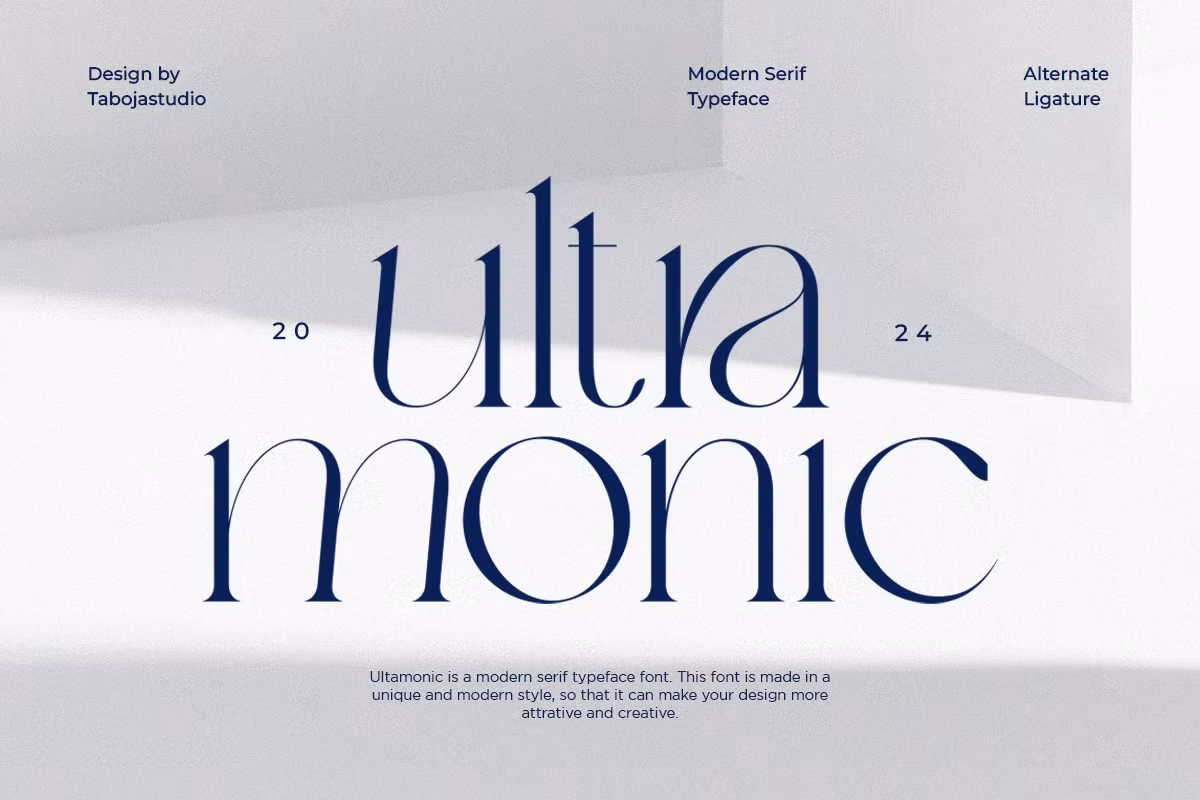
Command attention with the Ultra Monic | Serif Display Font Free Download — a bold, high-contrast serif typeface made for elegant headlines and modern branding. With its sharp serifs, sculpted curves, and editorial flair, Ultra Monic is perfect for magazine covers, fashion campaigns, luxury packaging, and stylish website headers.
This display font brings power and personality to your typography. Whether you're creating a premium brand identity or a bold visual message, Ultra Monic delivers clarity and sophistication in every letterform.